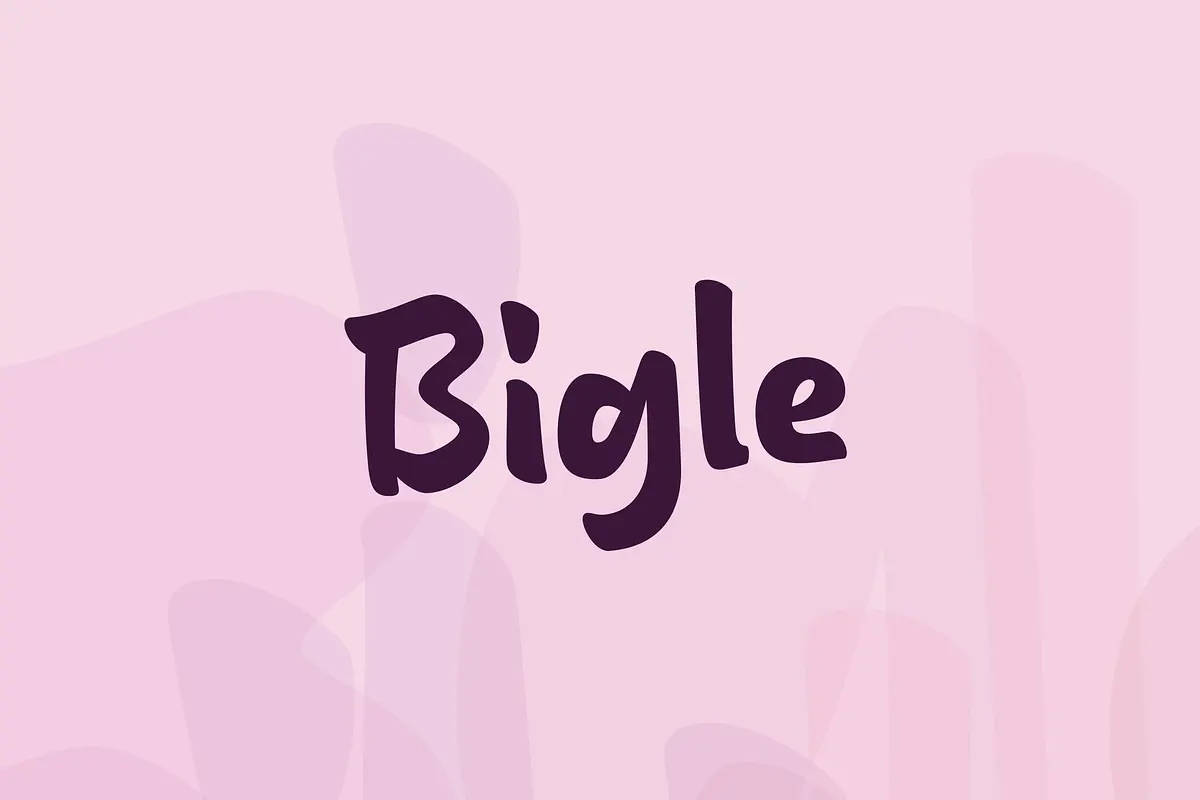
Bigle - Casual Typeface Free Download
Bigle - Casual Typeface Free Download is a friendly and approachable font that brings a relaxed, modern vibe to any design project. Please note: you must purchase this font for commercial use, but you can test it through a free download. With its smooth curves and clean lines, Bigle is ideal for branding, packaging, social media posts, lifestyle blogs, and playful editorial layouts.
Designed to be both stylish and easy to read, this casual typeface adds a touch of personality without overwhelming your content. Whether you’re crafting a trendy logo or a cozy café menu, Bigle - Casual Typeface Free Download helps your message feel warm, welcoming, and effortlessly cool. Fully compatible with Adobe Illustrator, Photoshop, and Canva, Bigle is ready to enhance your next personal project. Download it now and enjoy the laid-back charm of a typeface that keeps things simple—and stylish.